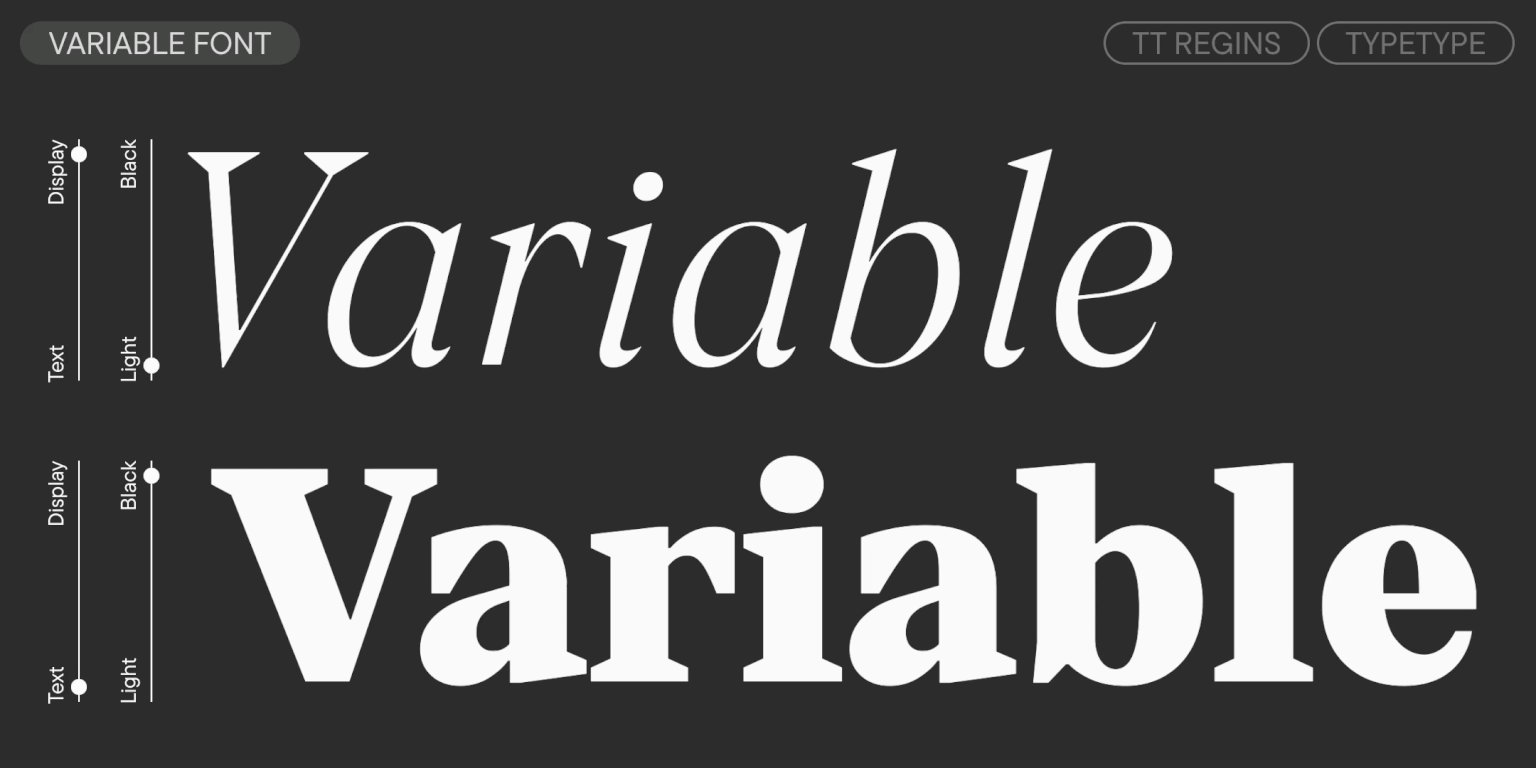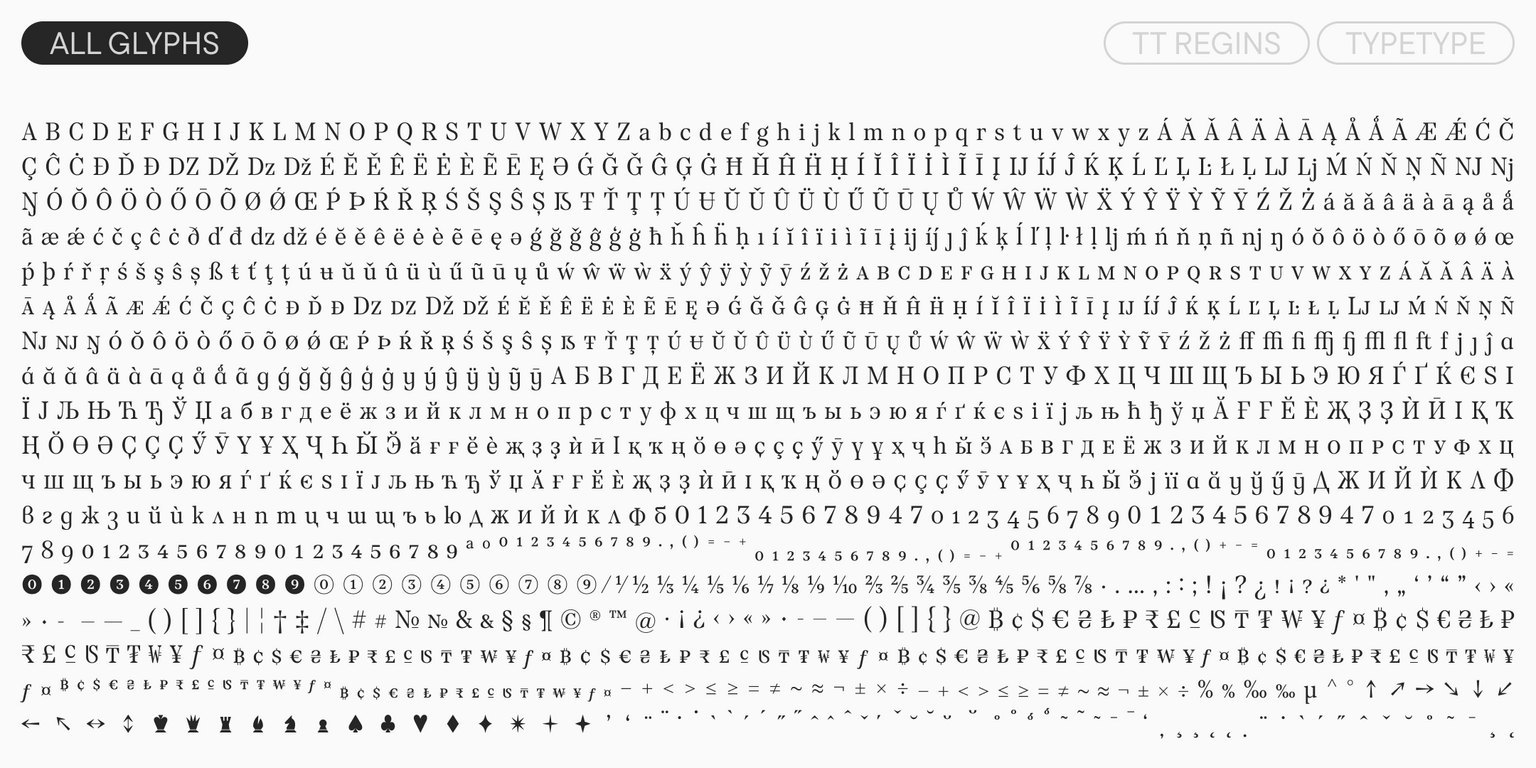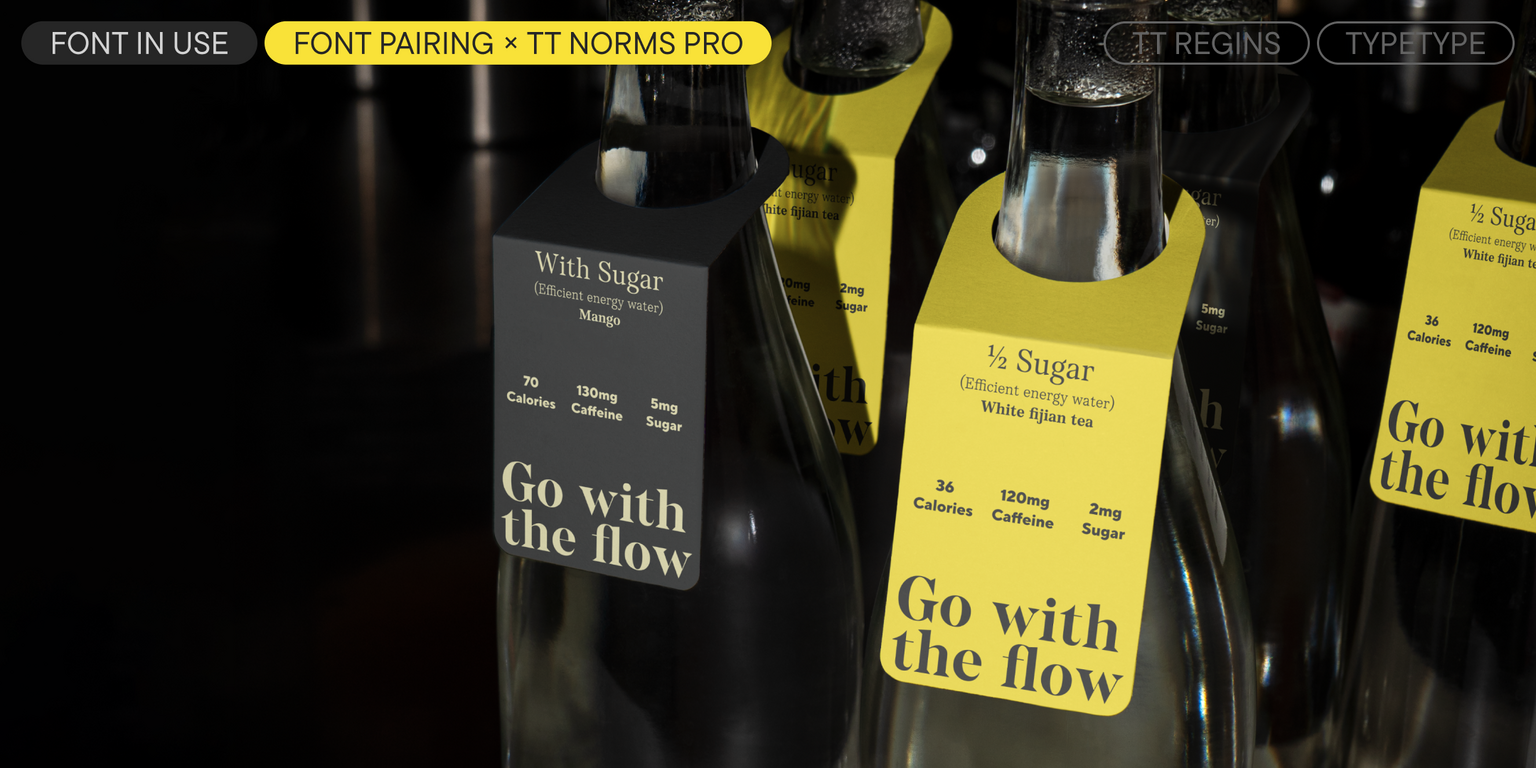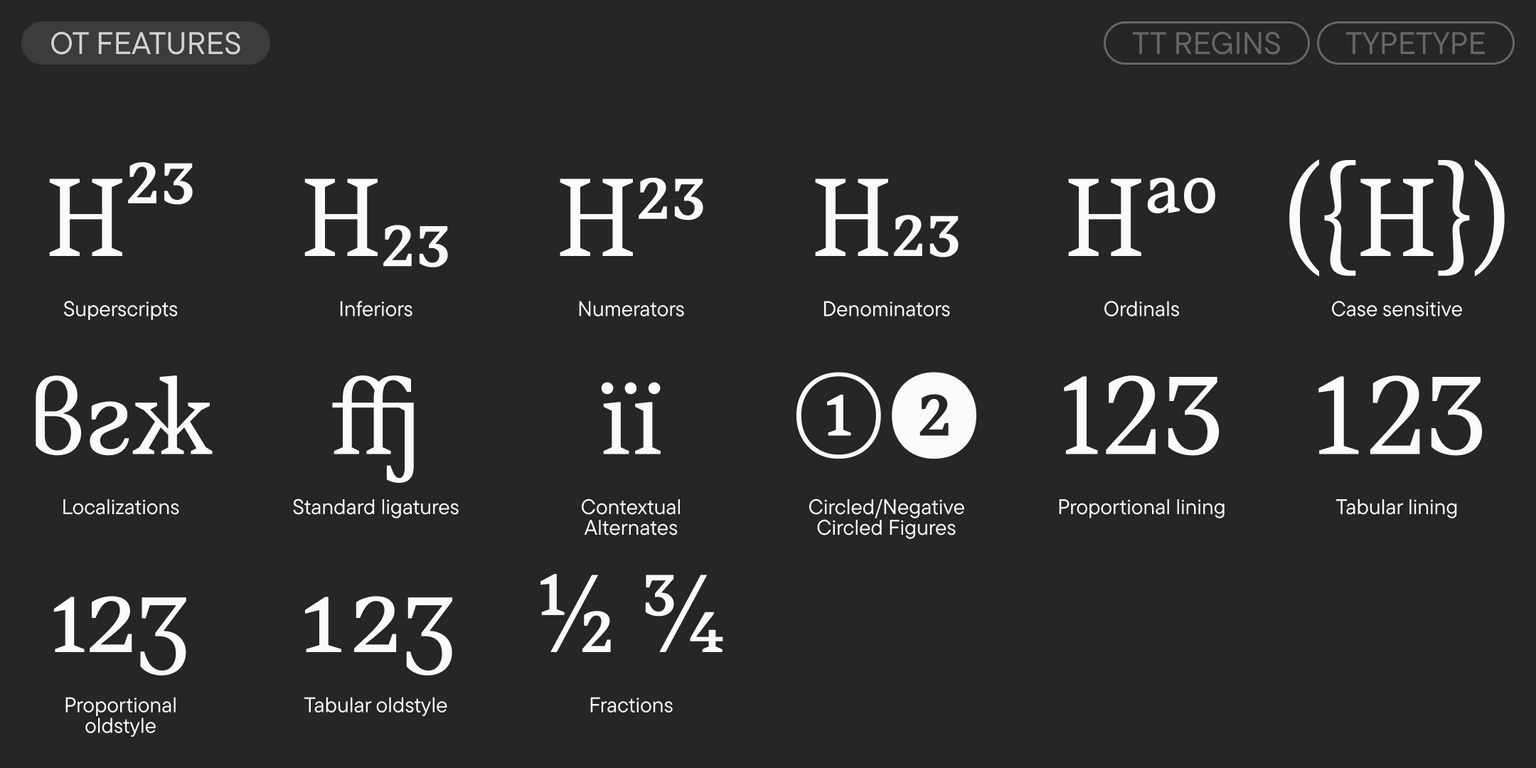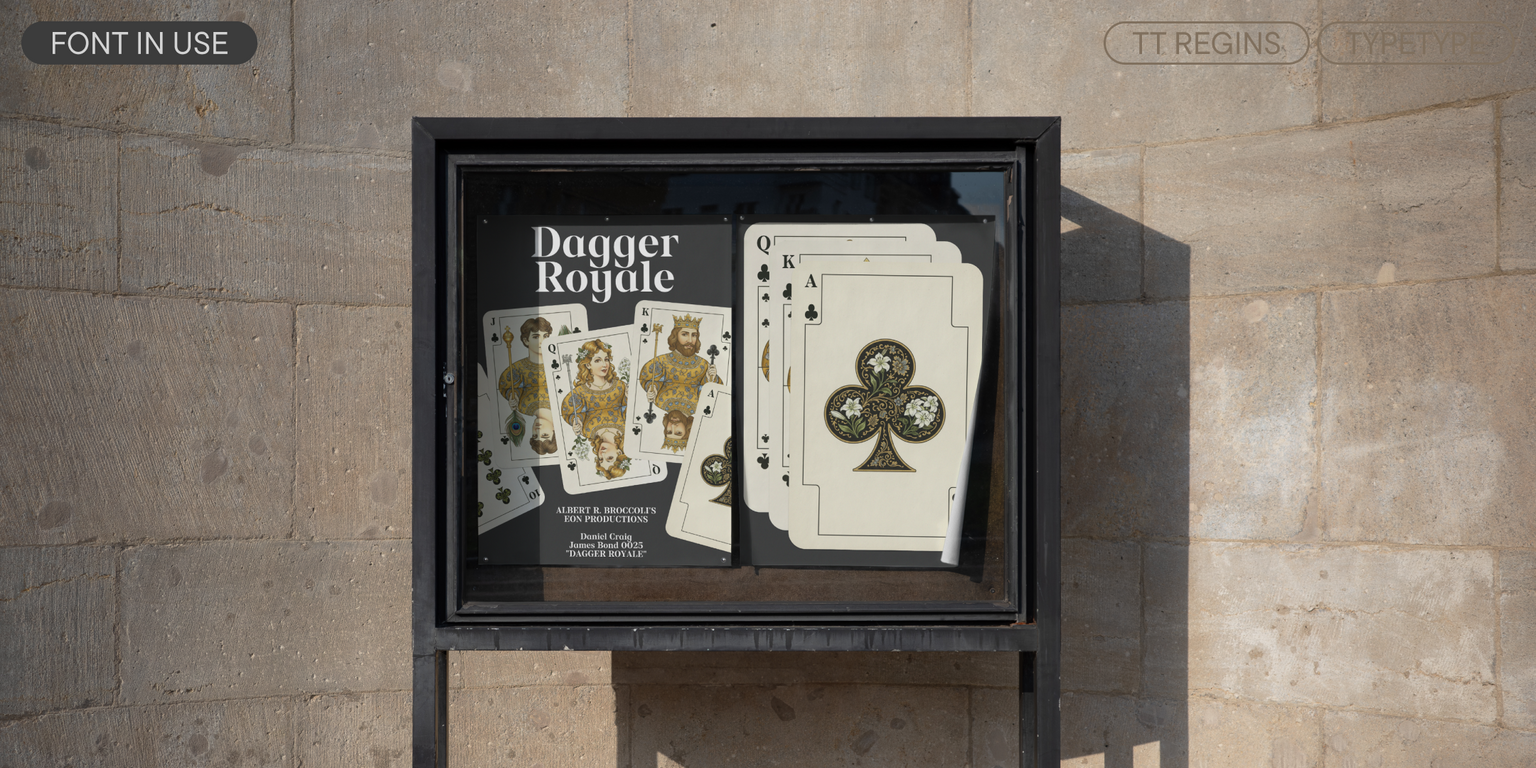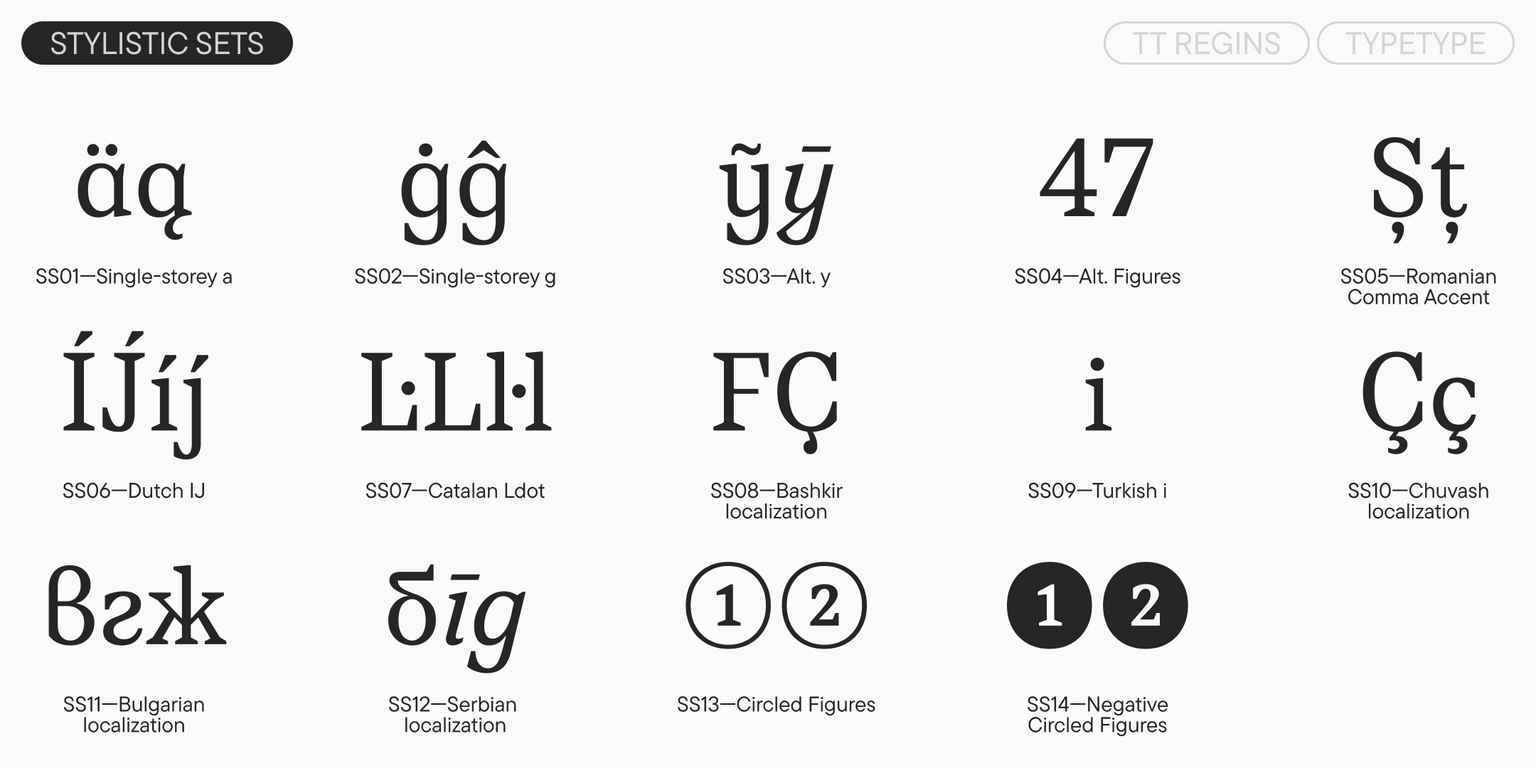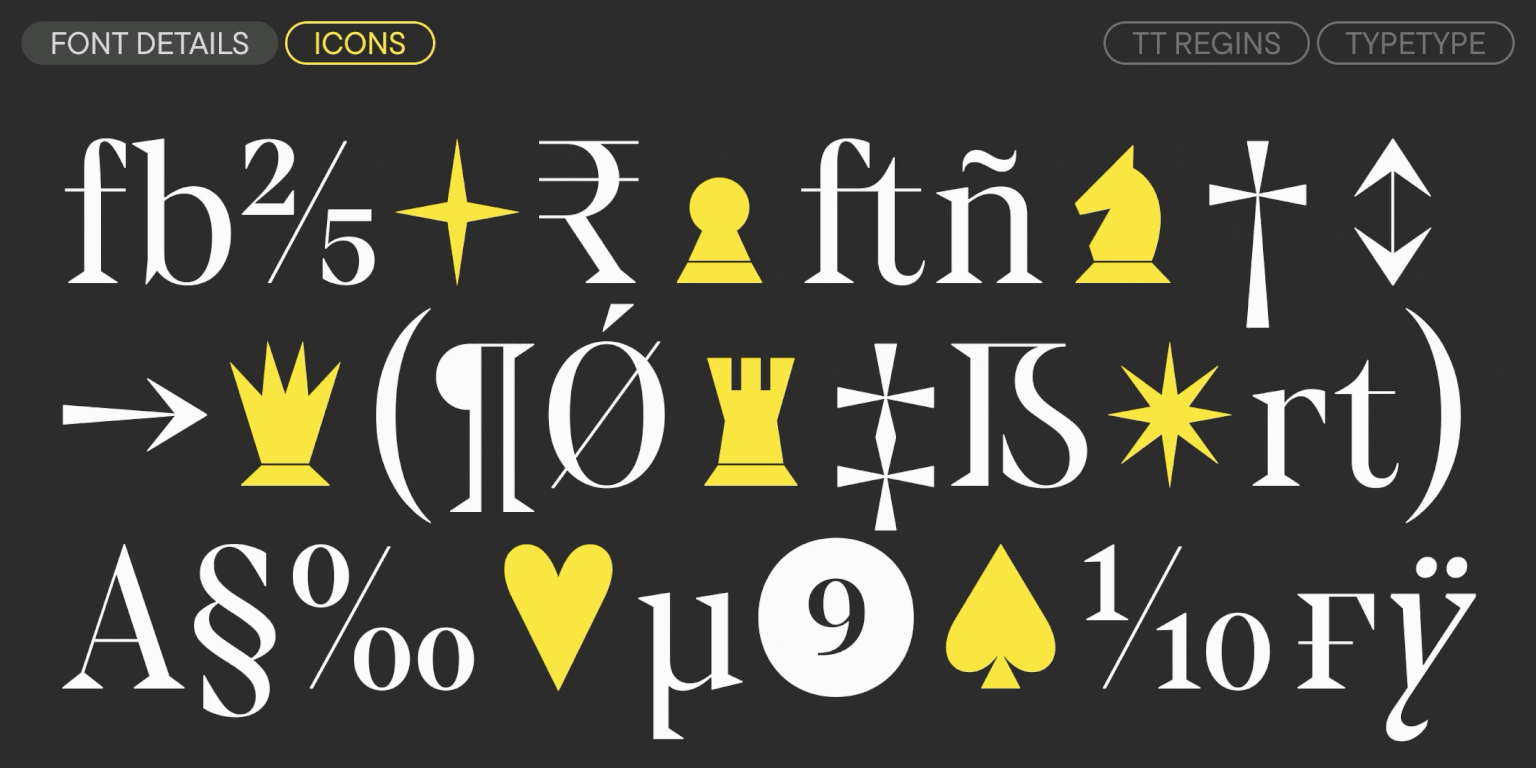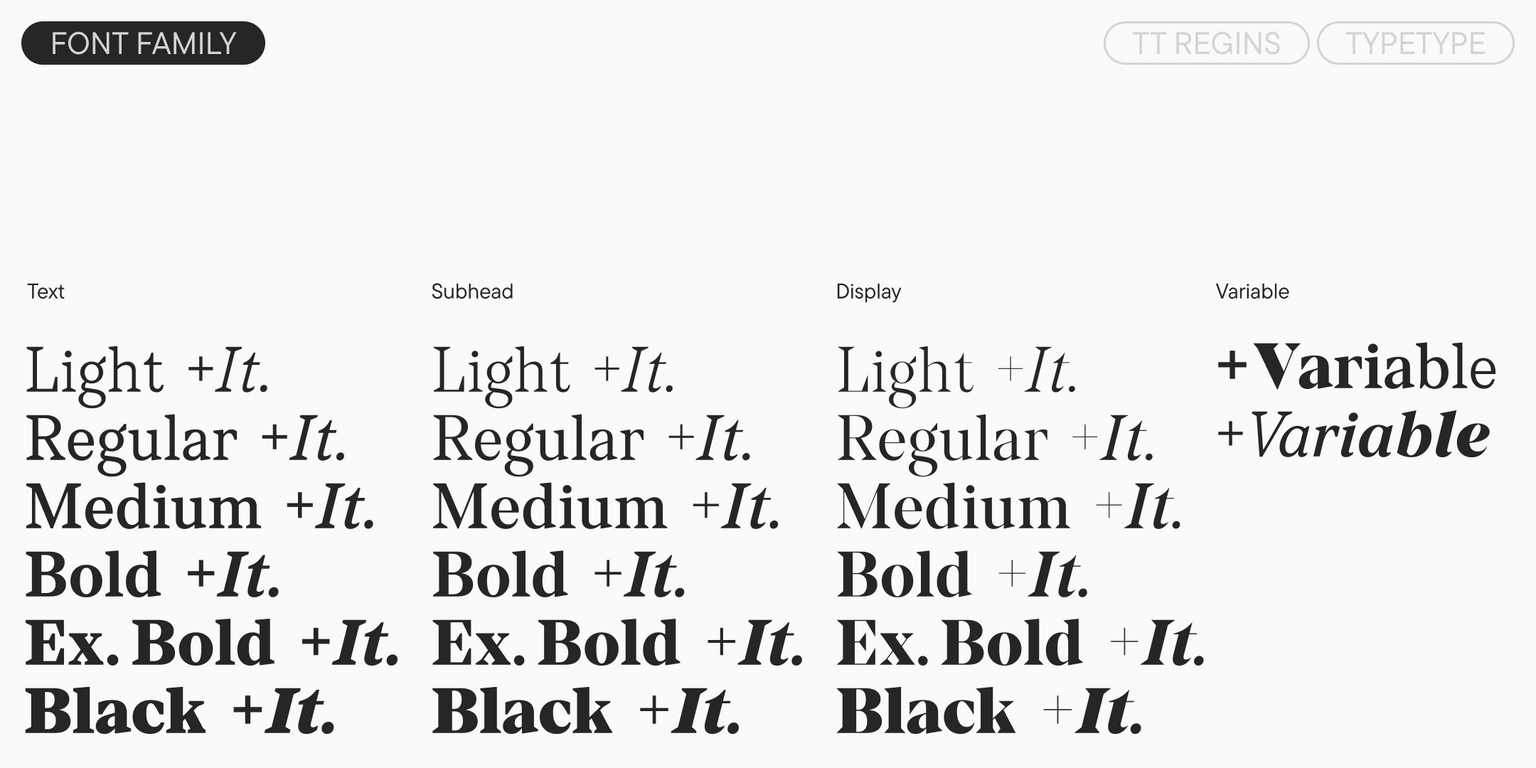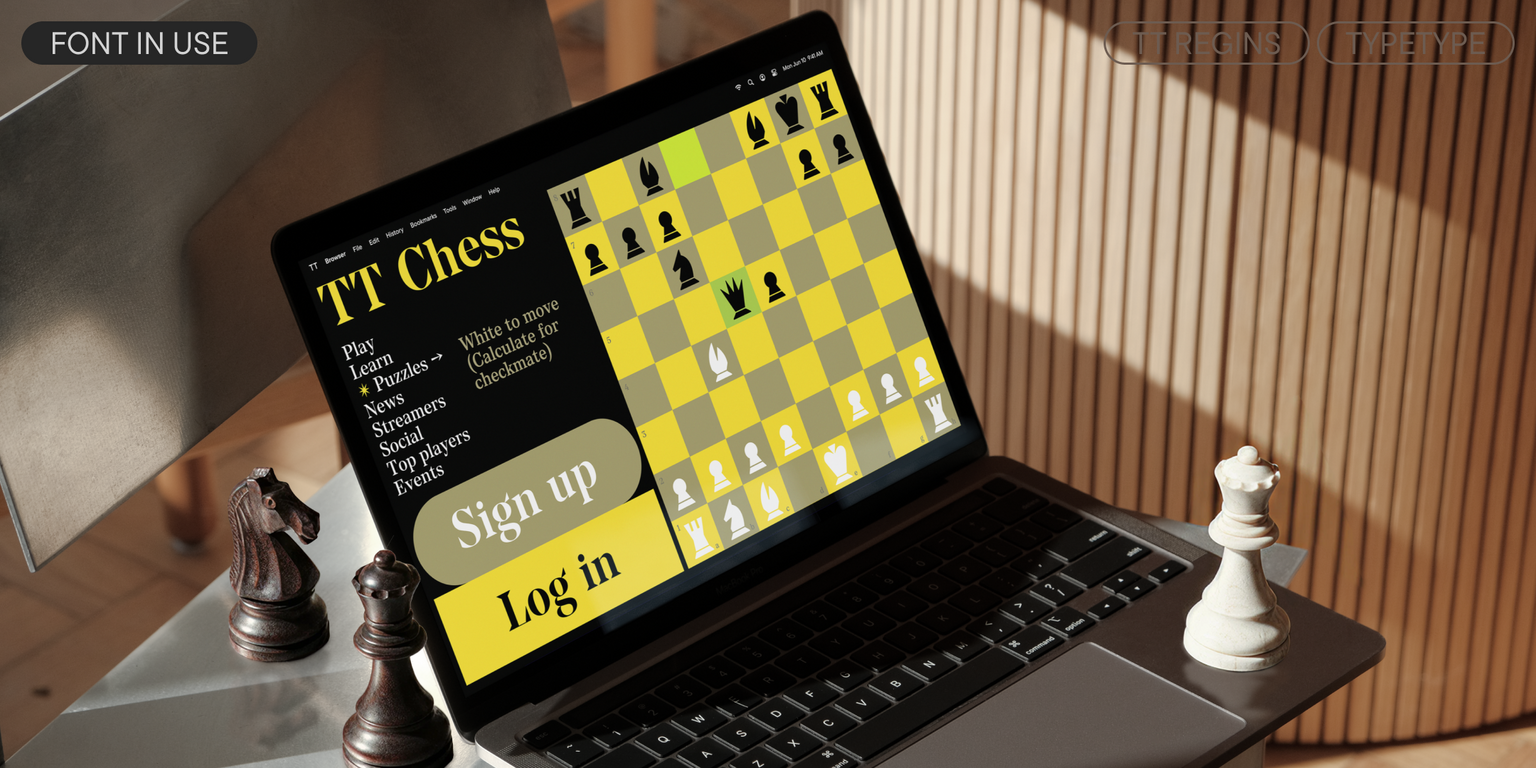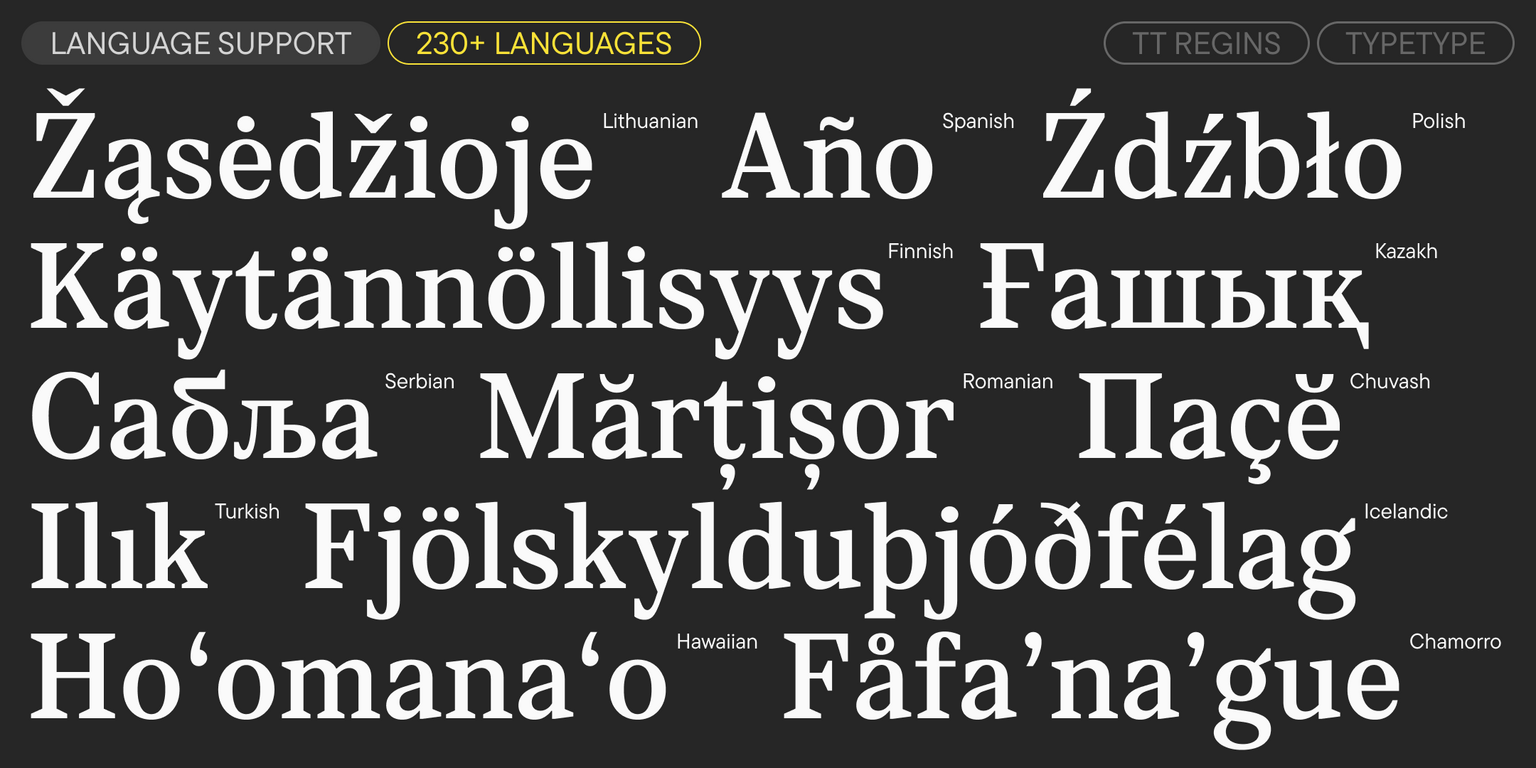
TT Regins
TT Regins is a Scottish serif with а royal character. Striking contrast and sharp triangular serifs give this font а stern and commanding character.
TT Regins—a modern serif that combines striking contrast and a stern character
The TT Regins font family belongs to the Neoclassical (Modern) serifs, in whose skeleton the traditional "pointed pen" is discernible. Although such fonts became wide- spread in the 19th century, they are still actively used in contemporary design. The typical application for this typeface is in cultural institutions: branding for education- al institutions, the visual identity of museums and exhibitions, and the design of galleries. This category of fonts is also popular in glossy print publications and for the packaging of premium brands.
The characteristic features of the TT Regins family are high stroke contrast, enlarged lowercase characters, and hypertrophied serifs. The typeface consists of three subfamilies, divided by their degree of contrast. TT Regins Text, with the lowest contrast, is suitable for regular body text and is excellent for small captions. TT Regins Subhead is suited for large and short phrases, serving as a transitional style between text and display fonts. TT Regins Display is designed for large headlines and major signage, where the font’s character is fully revealed.
TT Regins includes 3 subfamilies, 36 font styles, and 2 variable fonts
OpenType features
ss01 | Single-storey a
ss02 | Single-storey g
ss03 | Alternative y
ss04 | Alternative Figures
liga | Standard Ligatures
c2sc | Capitals to Small Caps